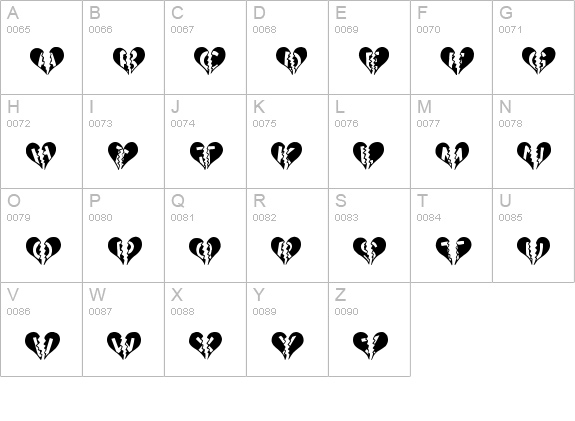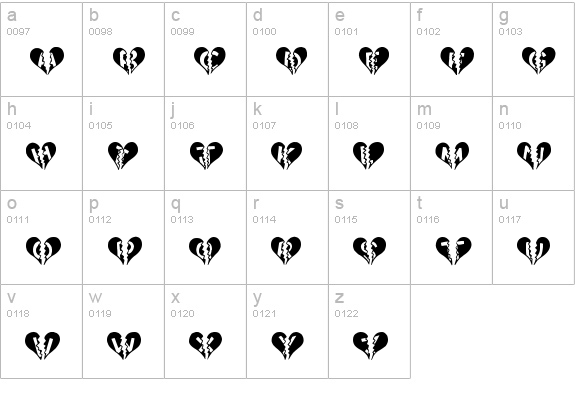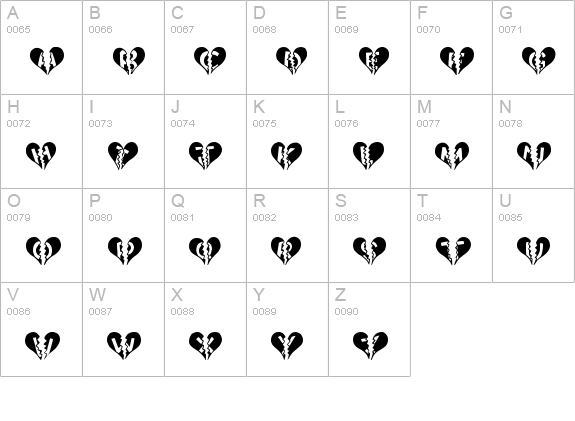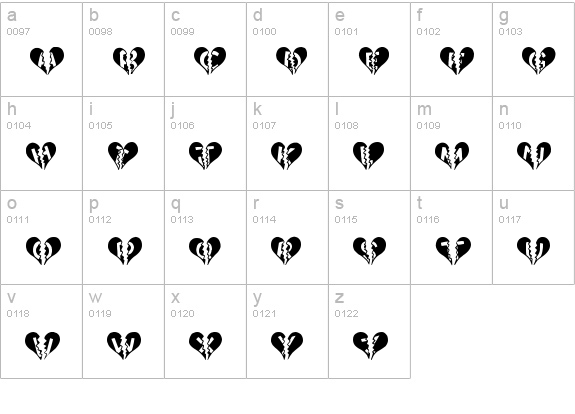
Introducing Heart Broken font, a beautifully crafted typeface that captures the essence of heartbreak and emotional vulnerability. This font is the perfect choice for conveying raw emotions, heartache, and introspection in your design projects. With its delicate strokes and intricate details, Heart Broken font adds a touch of melancholy to any text, evoking a sense of longing and loss. But what makes Heart Broken font even more remarkable is that it is freely available to download at FontsMarket.com. Yes, you read that right! This stunning font can be yours without any cost, allowing you to add a touch of emotional depth to your creative endeavors without breaking the bank. Whether you're working on a personal project, designing a heartfelt invitation, or creating artwork that speaks to the human experience, Heart Broken font is the perfect companion. Its versatility allows it to be used in a variety of contexts, from poetry books to album covers, from social media graphics to wedding stationery. Download Heart Broken font today from FontsMarket.com and let it breathe life into your designs. Don't miss this incredible opportunity to access a truly captivating typeface that will tug at the heartstrings of your audience. Express your emotions, tell your story, and create unforgettable designs with the free Heart Broken font.